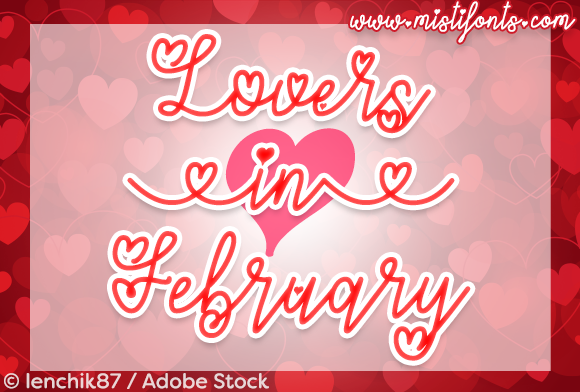
Lovers in February Font
About Lovers in February Font
Lovers in February is a romantic, monoline script that is absolutely perfect for your Valentine’s Day projects!
SPECIAL SYMBOLS
Type _ (underscore) for the heart swirl that connects between lowercase (and some uppercase)
Type | (bar) for the solid heart